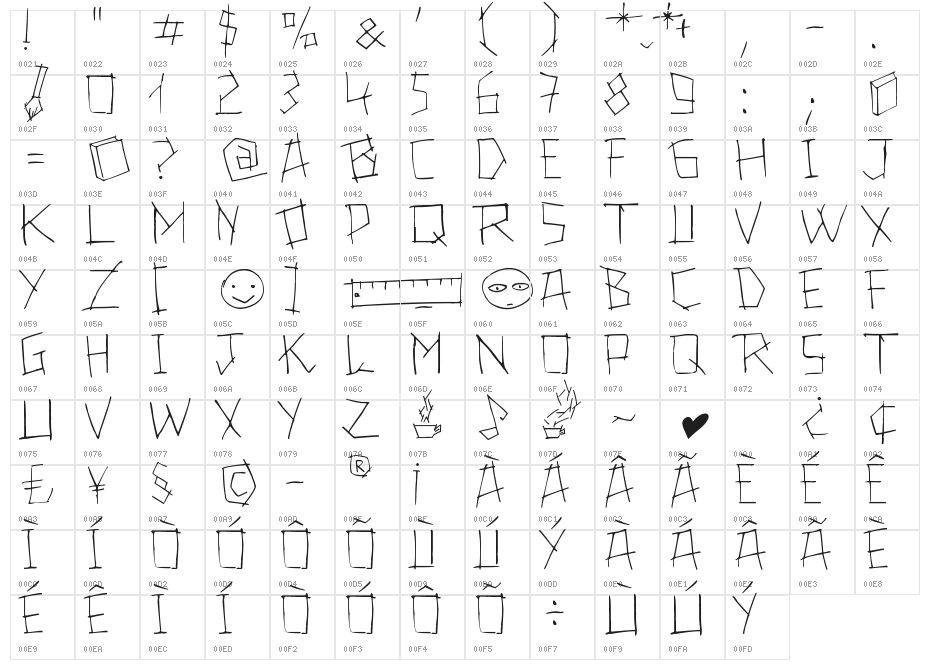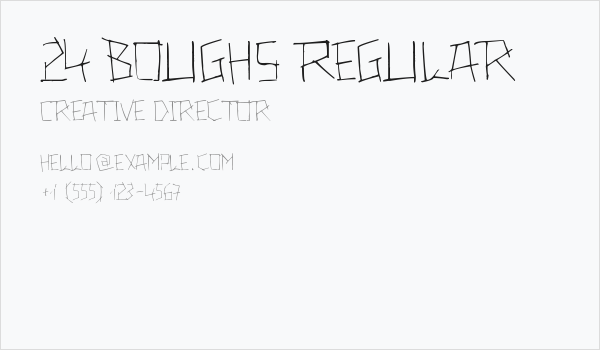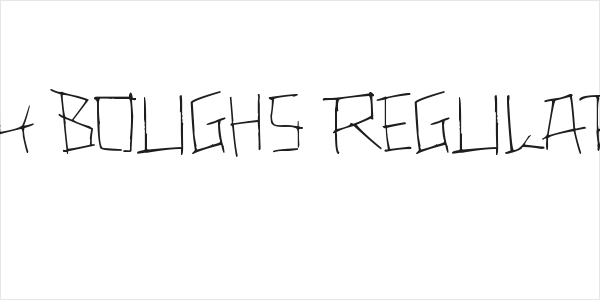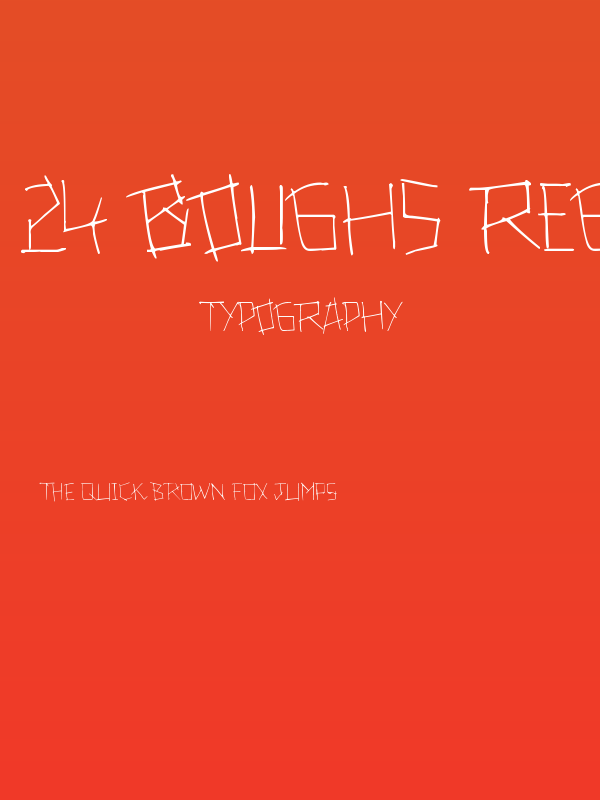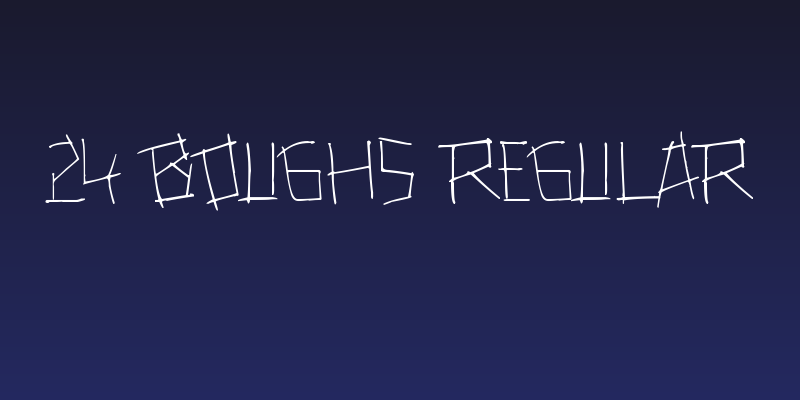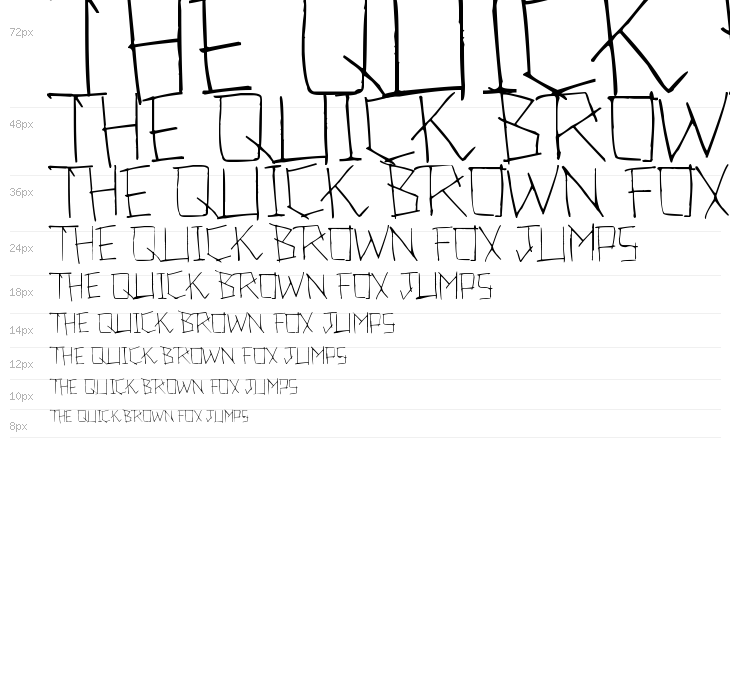
24 boughs Regular Font
24 boughs Regular Description
This font features a unique, hand-drawn style that mimics the appearance of twigs or branches. Each character is composed of irregular, angular lines that give it a rustic and organic feel. The uppercase and lowercase letters maintain a consistent style, with a playful yet structured appearance. Numbers and special characters follow the same design principles, ensuring a cohesive look across all elements. The font's uneven strokes and naturalistic design make it stand out, offering a distinctive aesthetic that is both whimsical and artistic.
Proposed ProjectsIdeal for nature-themed projects, children's books, creative posters, or eco-friendly branding.